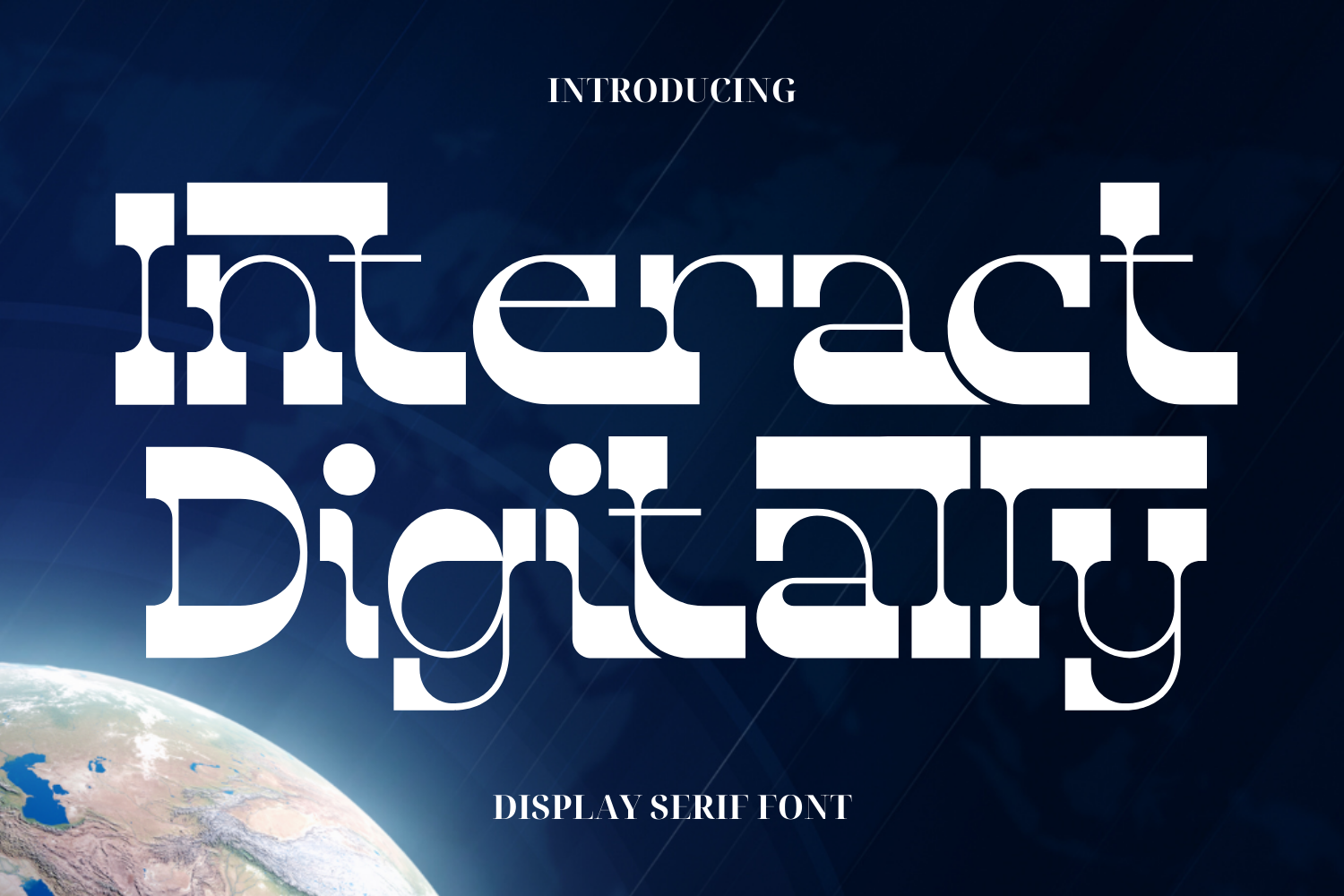
Interact Digitally Font
Interact Digitally Font is a retro vintage slab serif font family brings nostalgic charm and bold character to any design. This font style combines the solid, thick serifs typical of slab fonts with retro-inspired details from past decades. Featuring intricate ligatures and unique, this font beautifully blends multiple letters into distinctive, seamless shapes, giving your typography a one-of-a-kind, artistic flair. Ideal for branding, packaging, and editorial designs, a vintage slab serif font family adds a bold yet classic appeal, capturing a heritage-inspired style that stands out across print and digital formats.
Interact Digitally was built with OpenType features and includes 100 ligatures, alternate, numbers, punctuation, and it also supports other languages.
ac ad al an ar as at au av be ca ce ch co ct de di ea ec ed ee el em en ep er es et fe fo fr ge ha he hi ho ie ic il in io ir is it ju ke la le li ll lo ly ma me mi nc nd ne ng no nt ns oc of om on oo op or ot ou ow pa pr ra rd re ri ro rs rt se sh si so ss st ta te th ti to tr tt um un ur ve wi wo
This font also included full set of:
- Special Ligatures